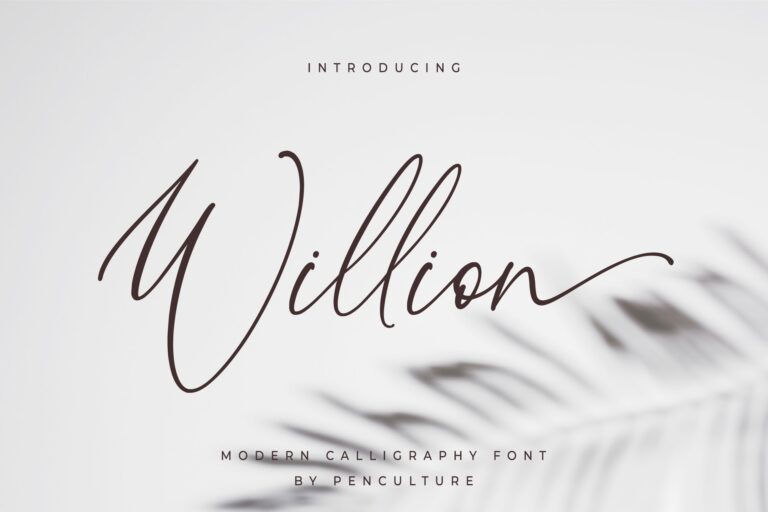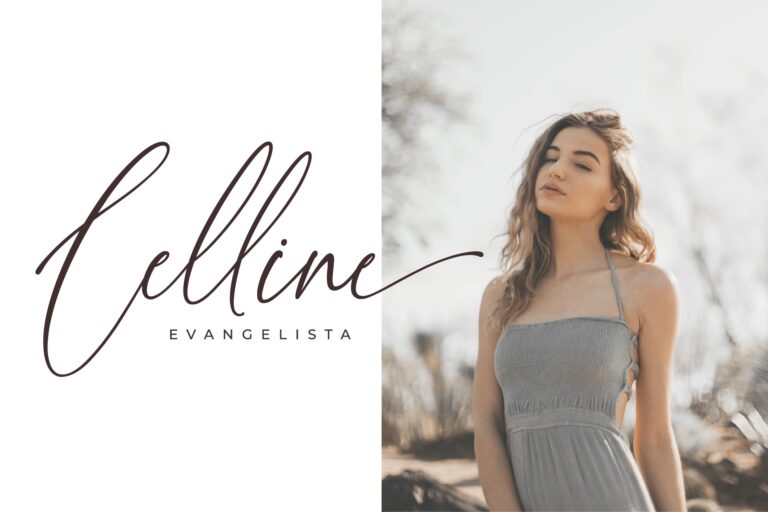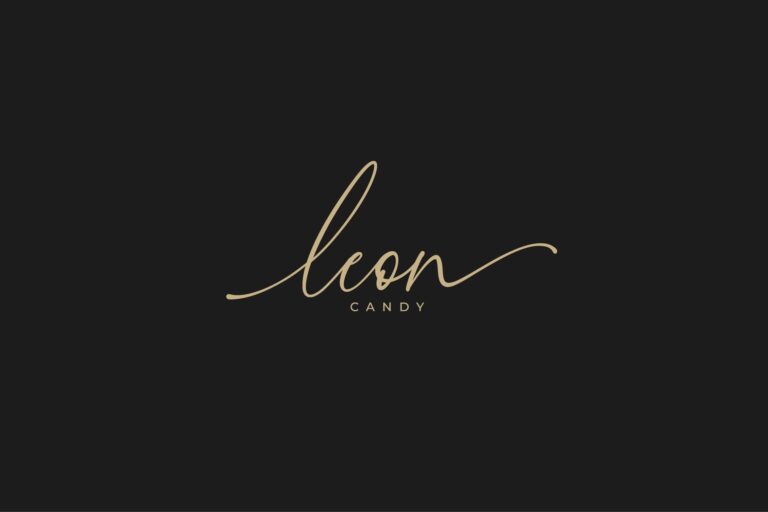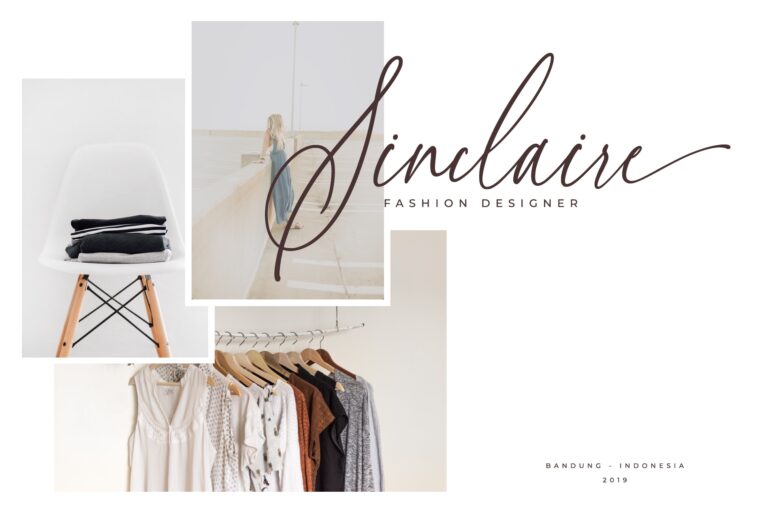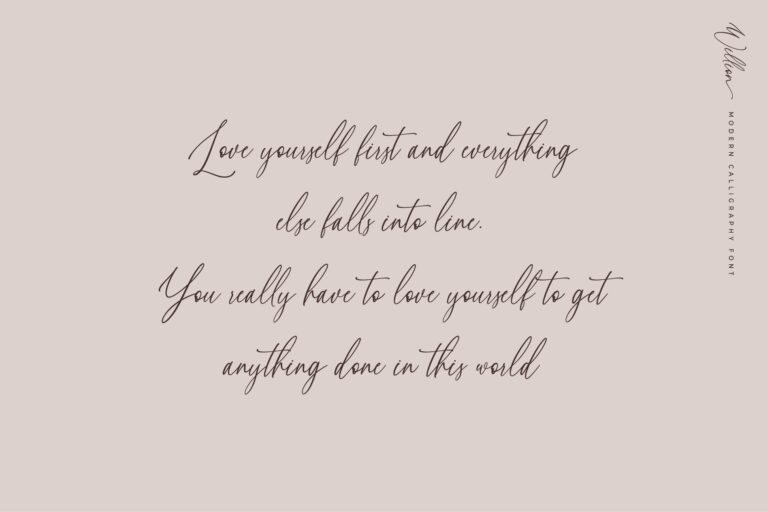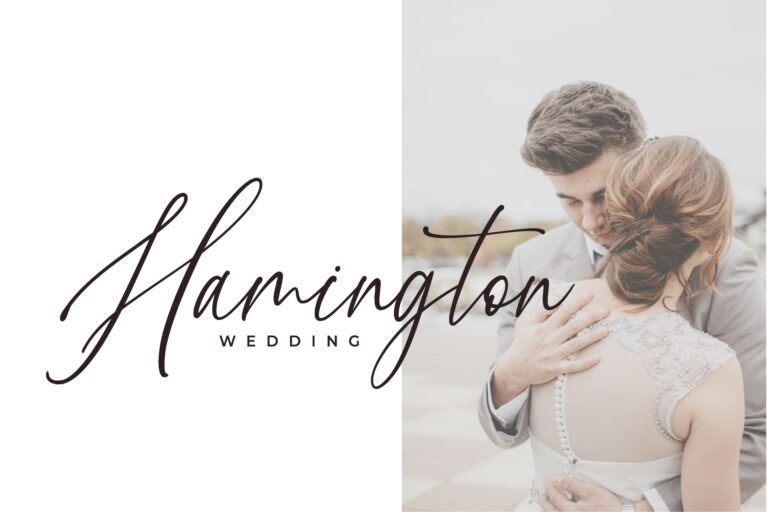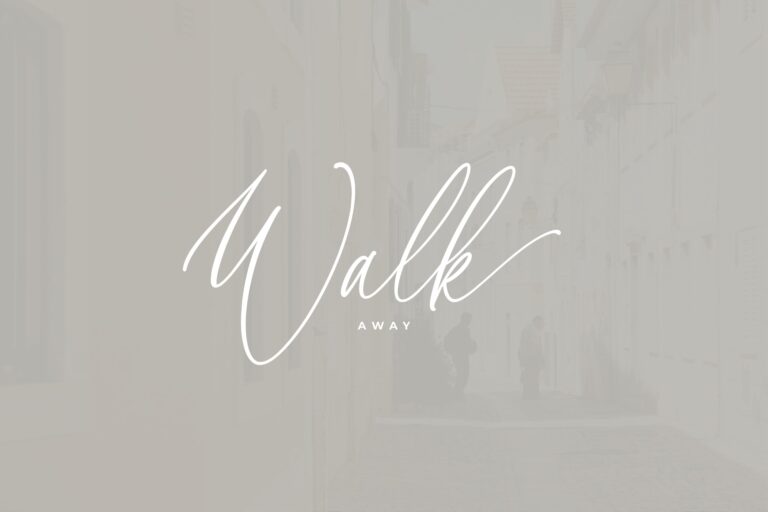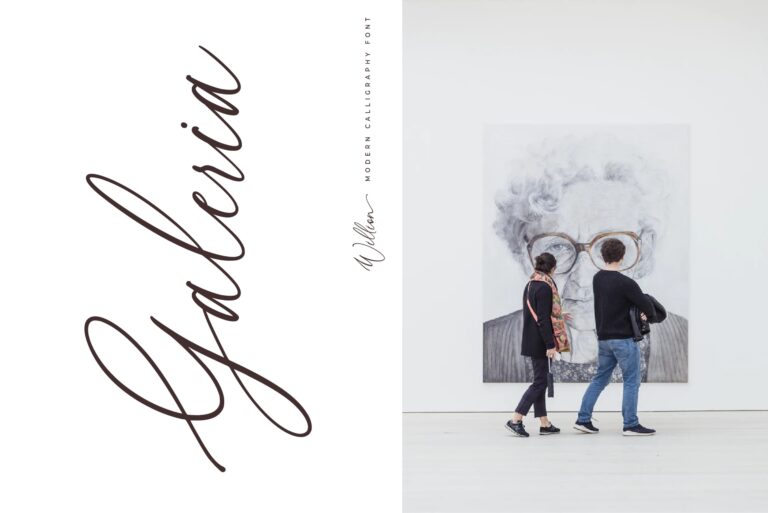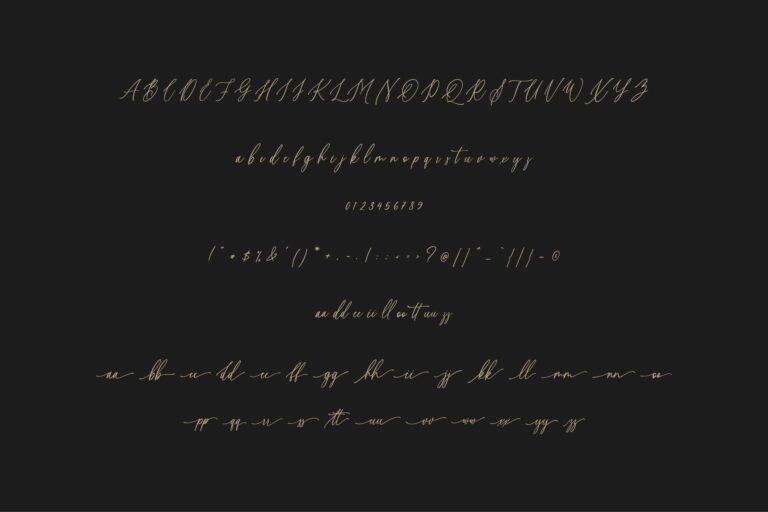
- Willion – Modern Calligraphy Font
Willion is a sophisticated font. This versatile script font has a wide range of applications ranging from logos and signatures to stationery, and is guaranteed to add a stunning touch to your next design.